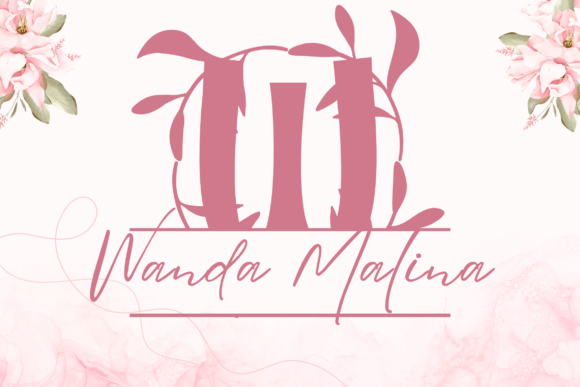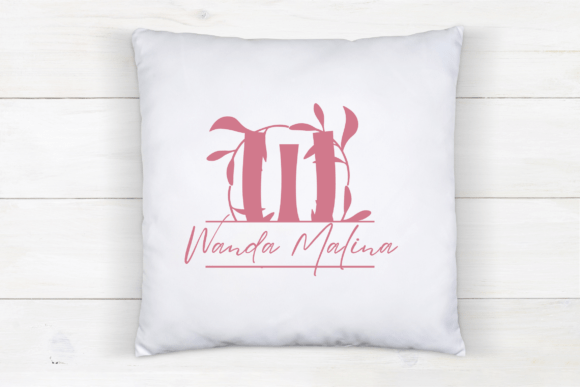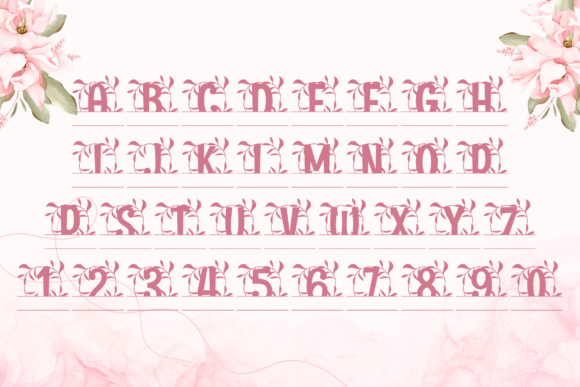
Introduction to Monarque Split Monogram Font
Monarque Split Monogram – Regal Serif Split Monogram Font Monarque Split Monogram is a sophisticated serif font designed with royal flair and personalization in mind.
Each uppercase letter is crafted with regal detailing and a refined serif base, then divided with a clean horizontal split—allowing you to add names, dates, or custom text This makes it ideal for weddings, luxury branding, boutique logos, packaging, and personalized crafts that need both elegance and flexibility.